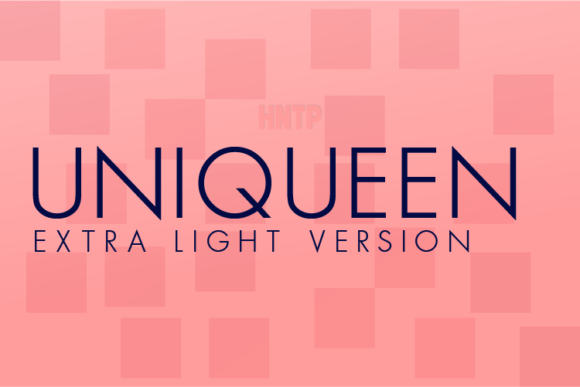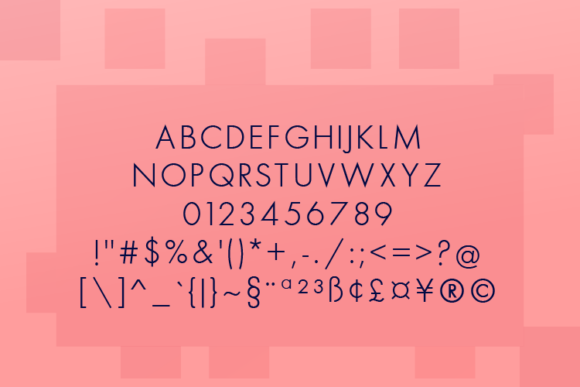
HomeSans Serif FontsUniqueen Extra Light Font Sans Serif Fonts Uniqueen Extra Light Font FacebookXPinterestWhatsApp Uniqueen Extra Light Font 1 of 2 About Uniqueen Extra Light Font Uniqueen is a geometric sans font with roman proportions. It has a serious but timeless look and makes an ideal font for corporate publishing, branding, wayfinding and complex technical information systems. DOWNLOAD NOW People also explored Ruddy Riofam Font Ritafurey B Cat and Dog Font Snowman Font Hittoshira Font Silent Landfield Font Jentera Font Filmotype Jade 530 0 TagsUniqueen Extra Light Font Previous articleUniqueen Light FontNext articleUniqueen Thin Font LEAVE A REPLY Cancel reply Comment: Please enter your comment! Name:* Please enter your name here Email:* You have entered an incorrect email address! Please enter your email address here Website: Save my name, email, and website in this browser for the next time I comment. Personal Use Free Cottage Personal Use Free Read more about this font BD Spinner Personal Use Free Read more about this font Critical Personal Use Free Read more about this font Sweet Someday Personal Use Free Read more about this font BLOG Free vs Paid Fonts: Why Investing in Premium Fonts Is Worth It Free vs Paid Fonts: Why Premium Fonts Are Worth It in 2025 The debate of free vs paid fonts continues in the design world. While... Using Fonts in Digital Marketing: Tips to Strengthen Your Brand Identity 5 Fonts That Will Dominate Design Trends in 2026 How to Install and Use Fonts on Windows, macOS, and Web Projects